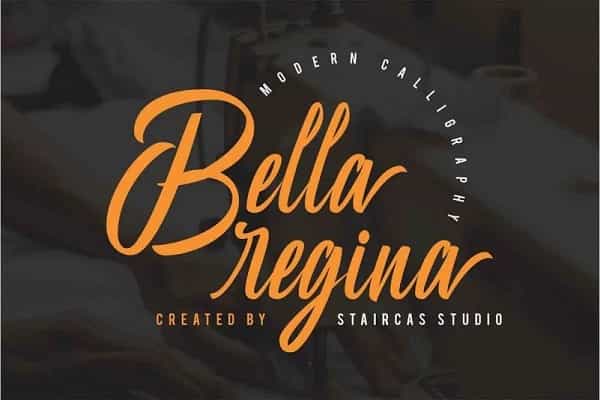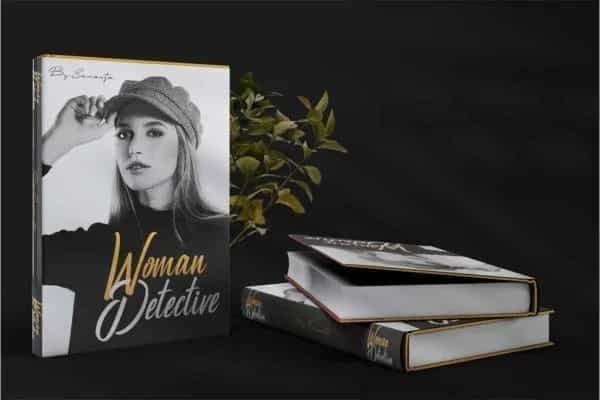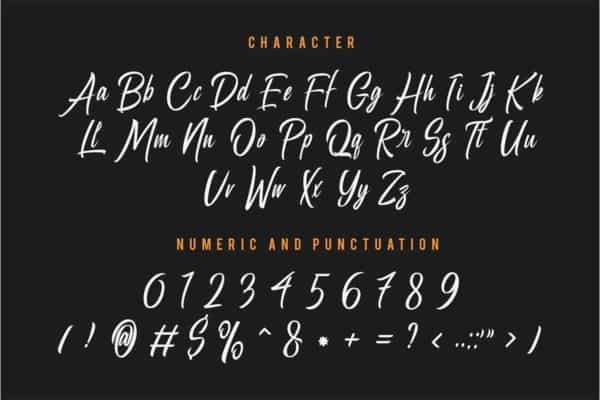
Bella Regina an awesome contemporary script for calligraphy font. It comes with ligatures, a stylistic set multilingual and more. Perfect for greeting cards and business cards, branding materials posters, quotes and much more!